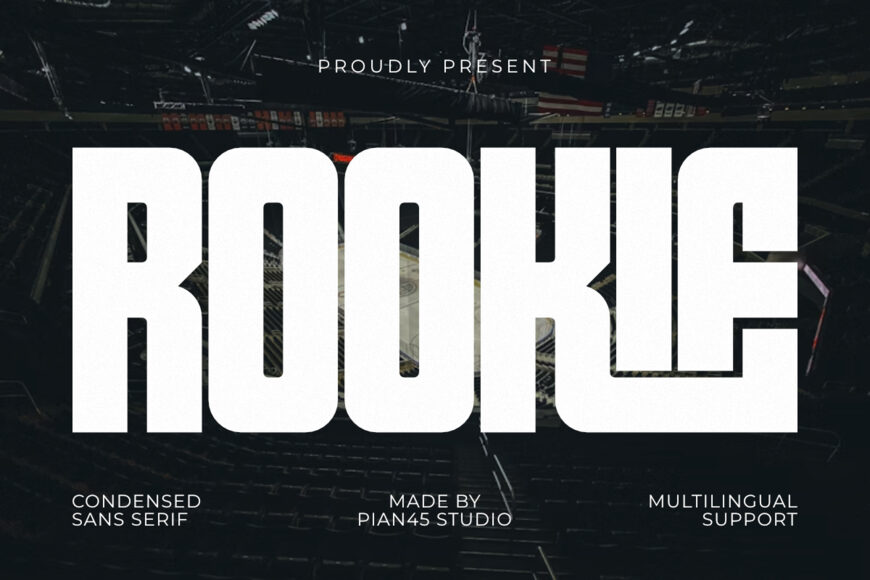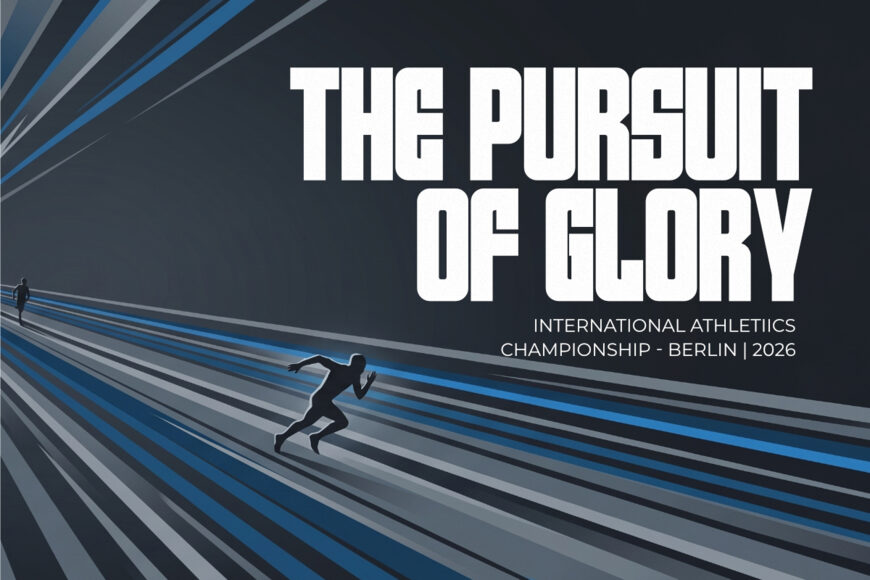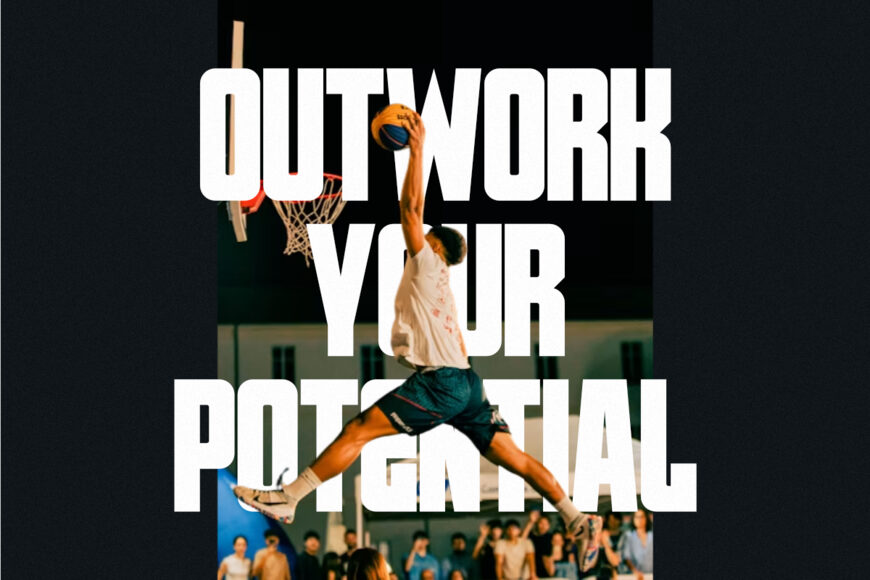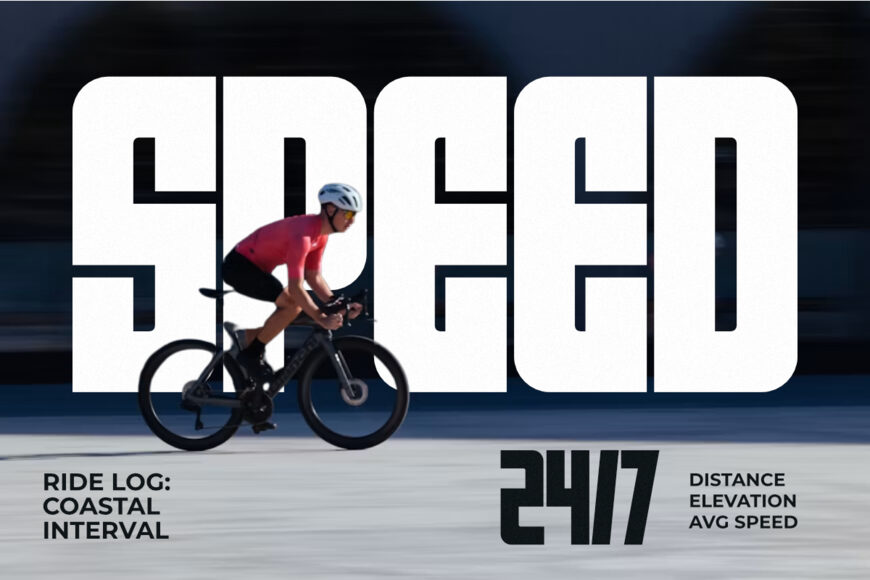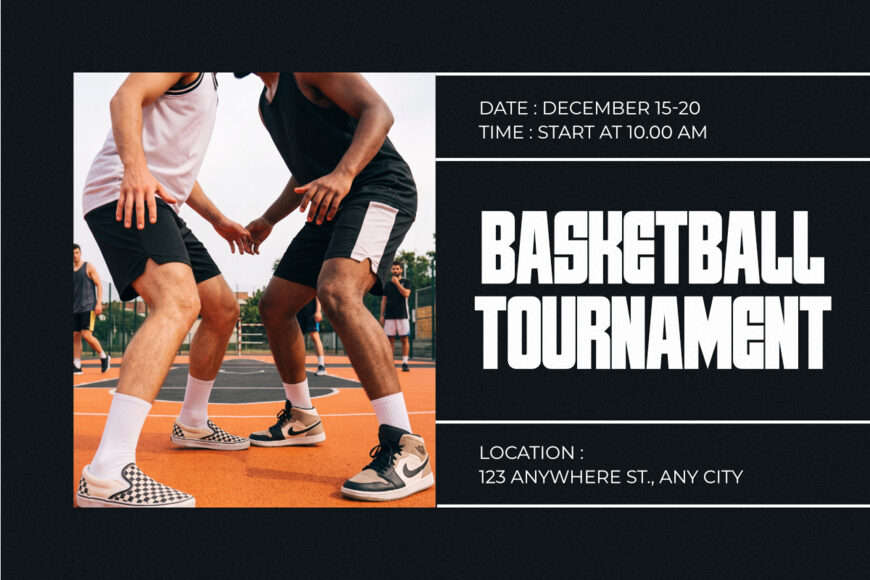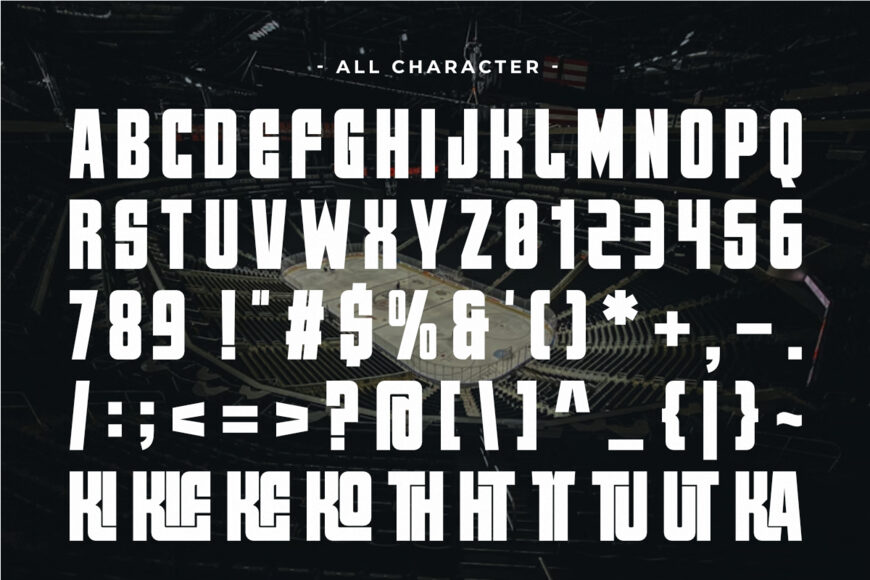
Rookie is a fresh and high-impact Modern Condensed Sans Serif font designed for bold visual storytelling and athletic momentum. Featuring a clean, ultra-tall vertical geometry and strong blocky structures, this all-caps typeface is engineered for sports branding, modern streetwear logos, academy team shirts, and competitive gaming assets.
Its professional, space-saving layout guarantees incredible readability in narrow spaces, making it the ultimate tool for striking headlines, cinematic posters, lifestyle merchandise, and high-visibility digital marketing graphics.